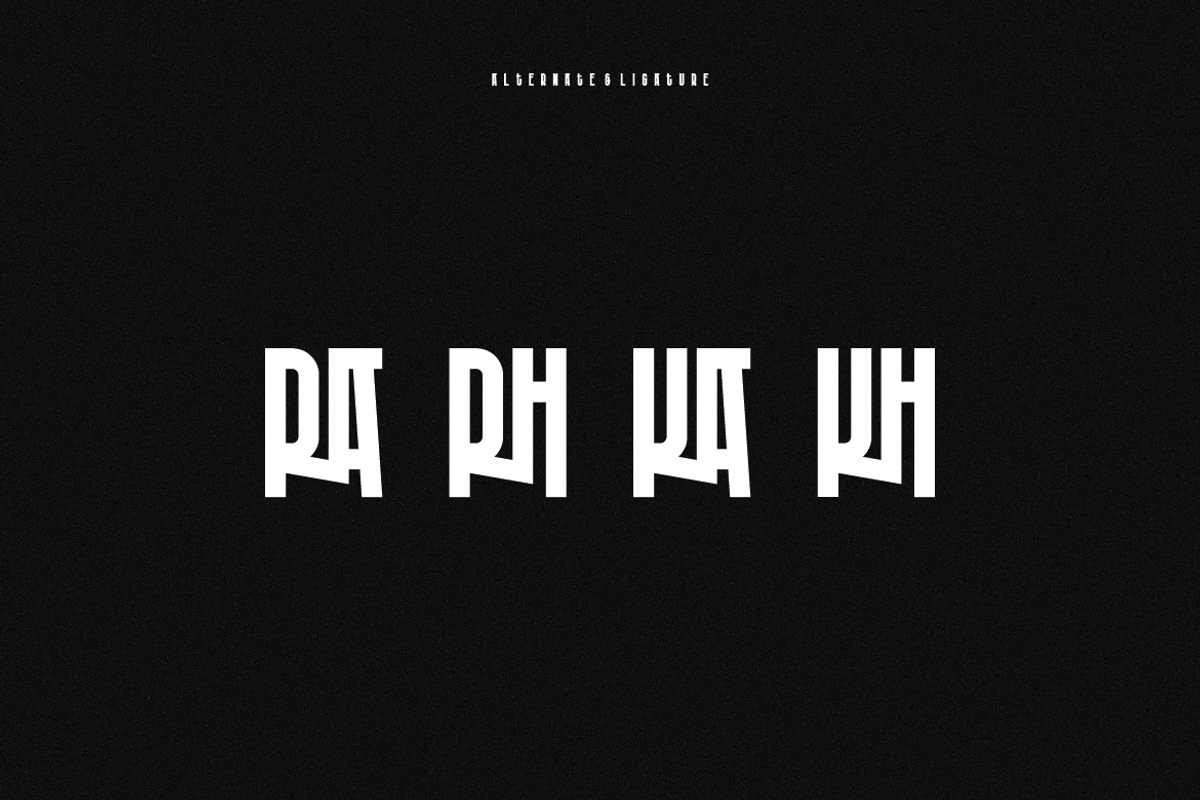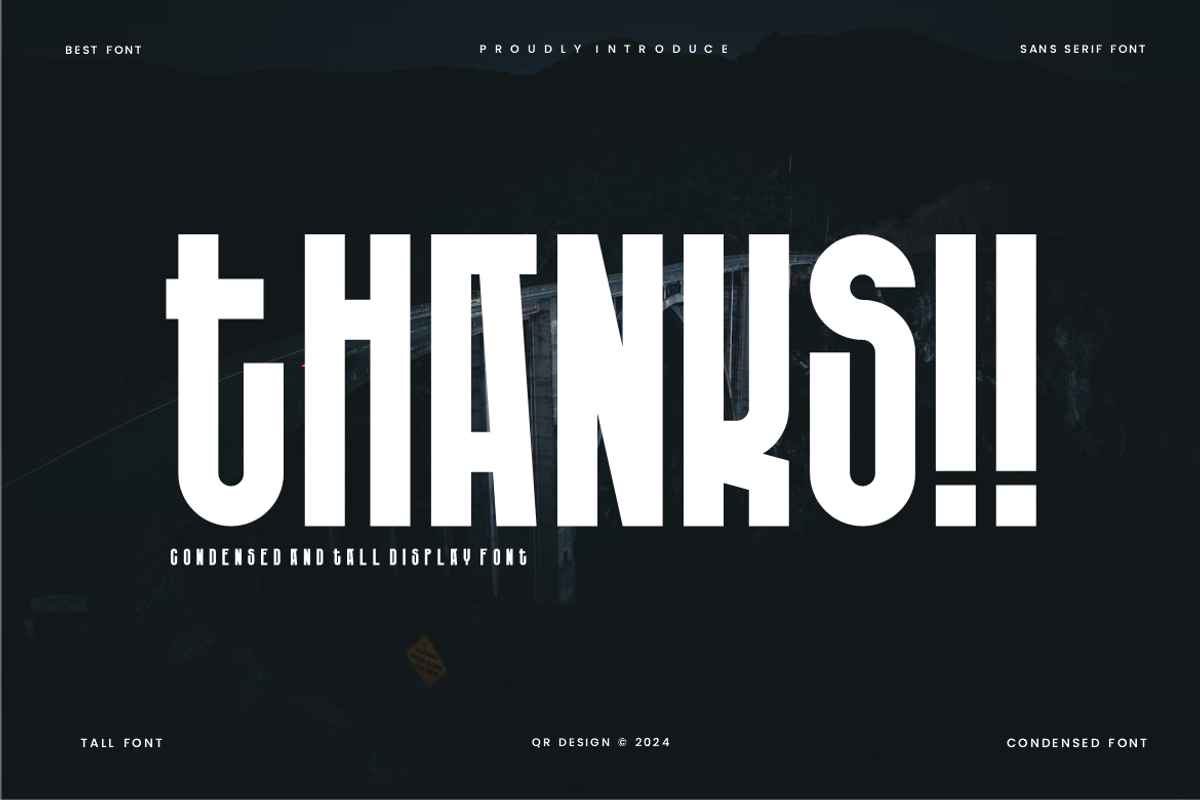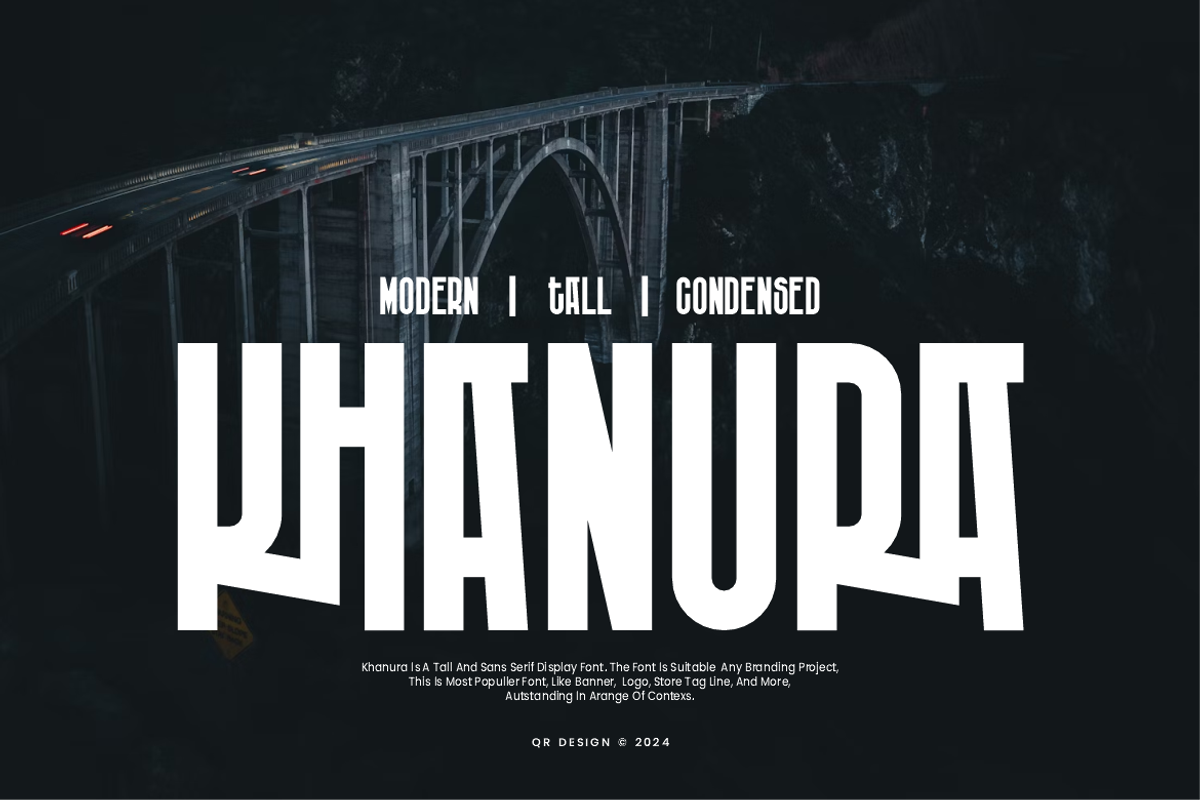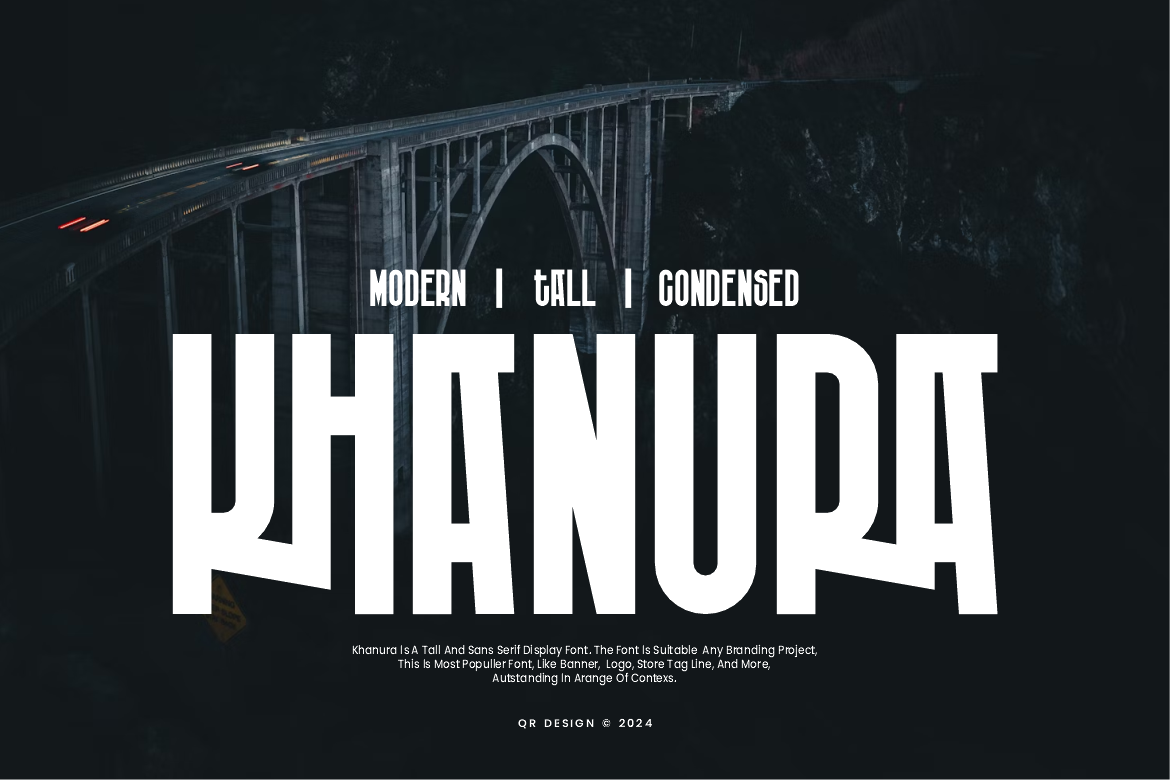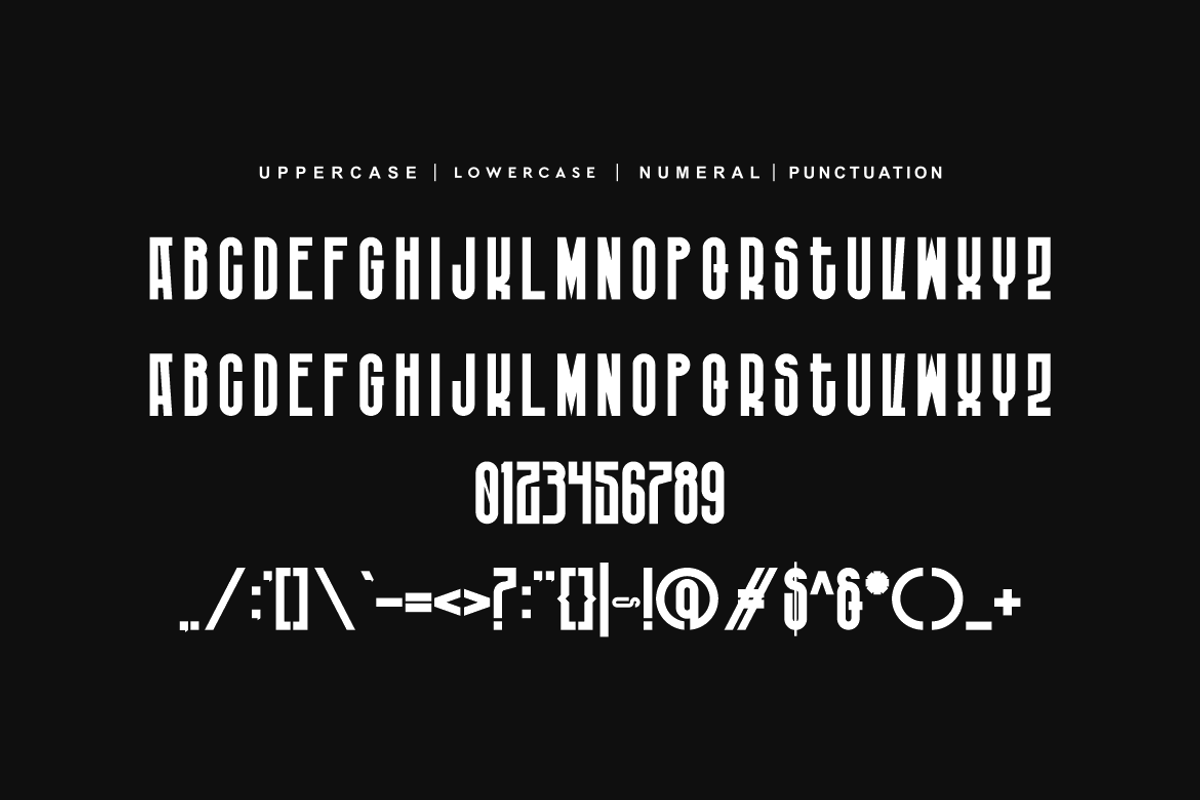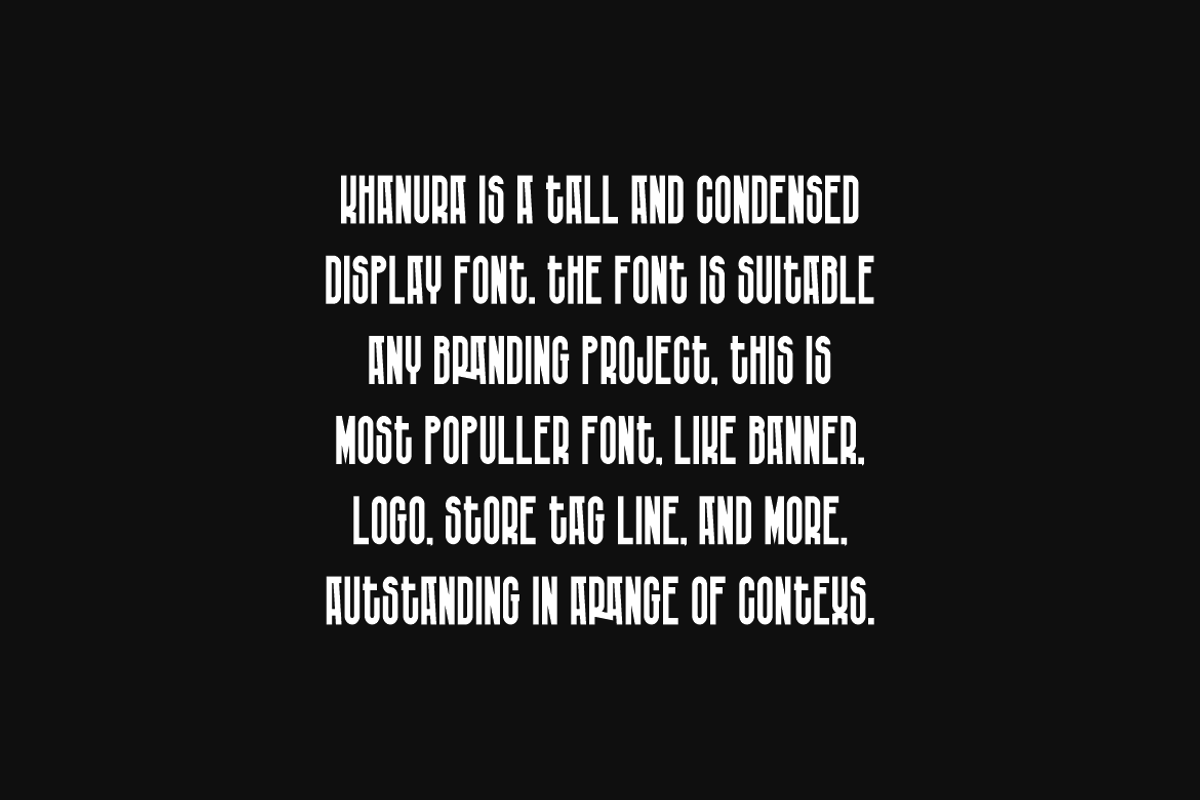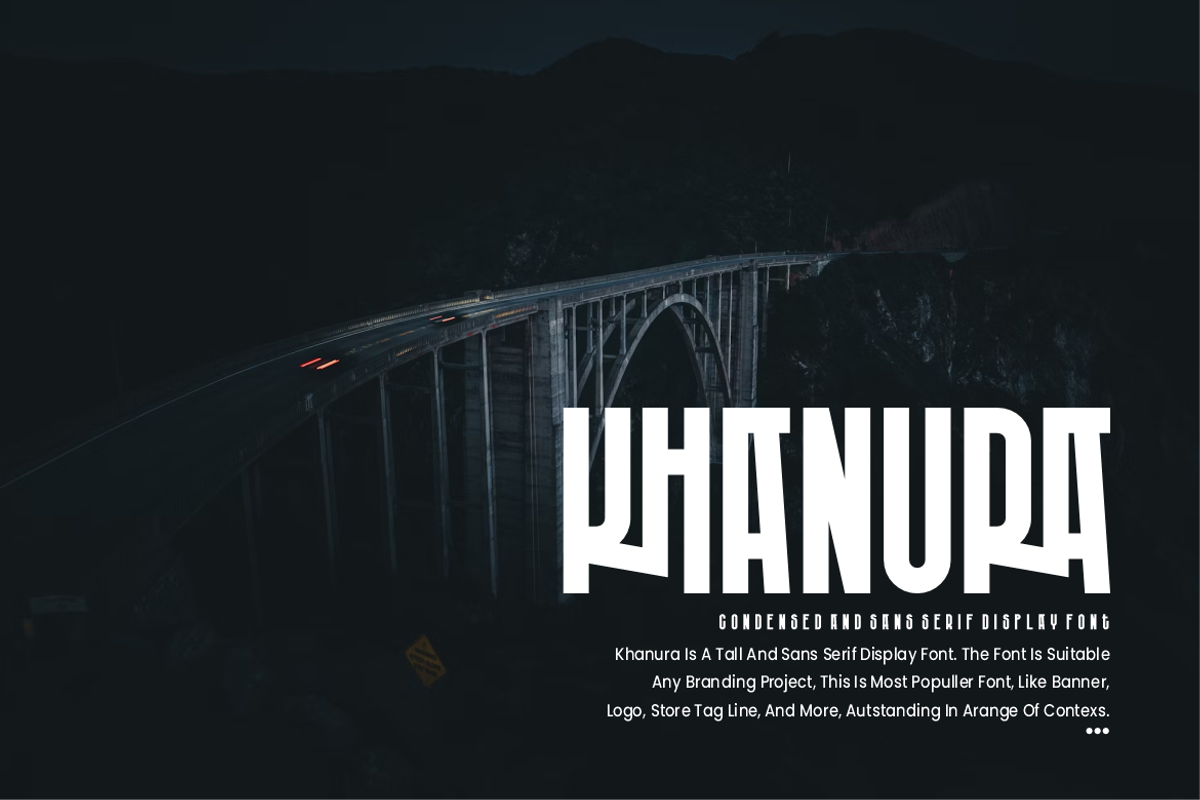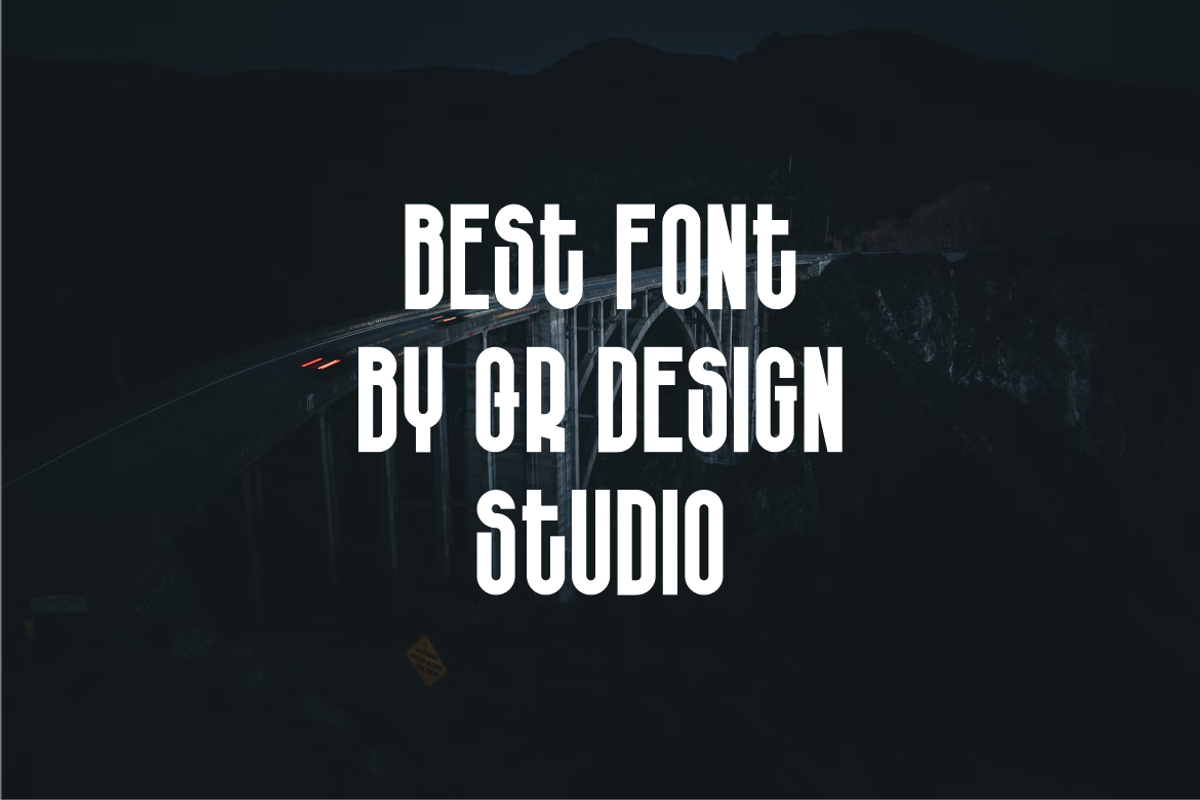
Khanura - Tall Sans Font
Khanura Font is a sans and authentic display font. The font is suitable for any branding project like poster, logo, sport, and many more. Outstanding in a wide range of contexts.